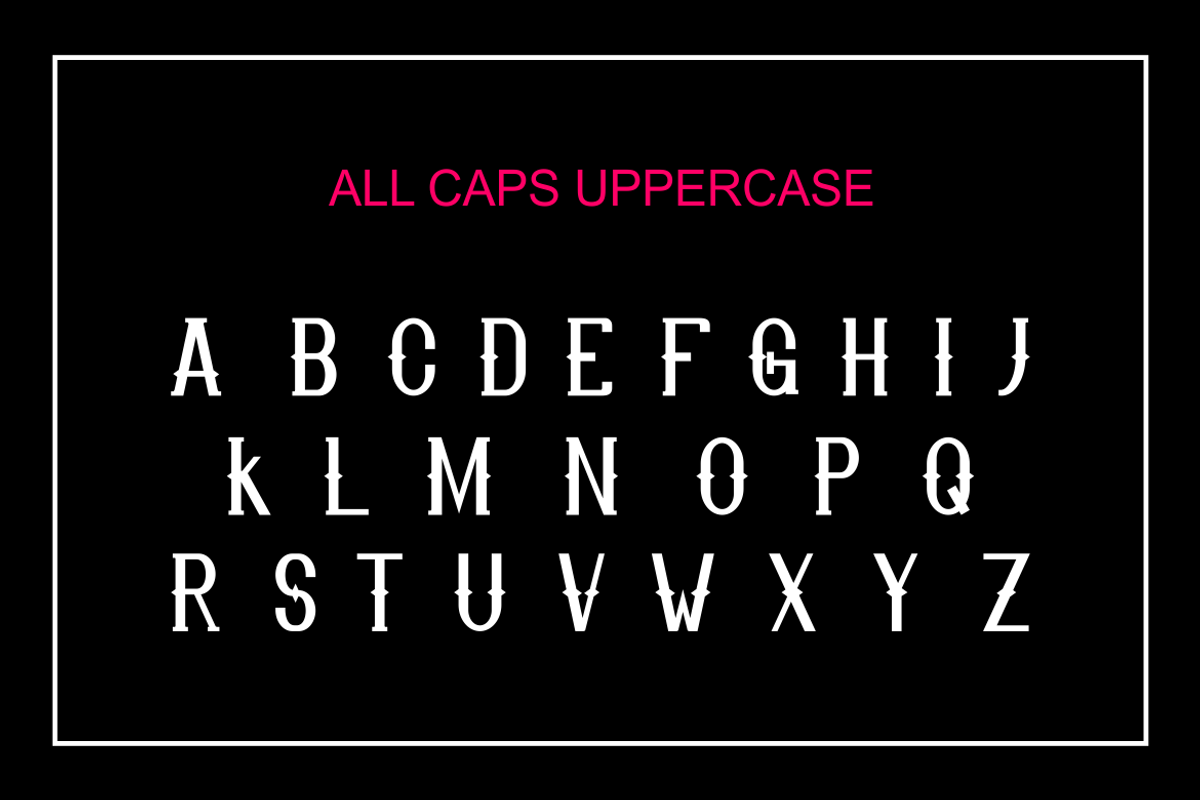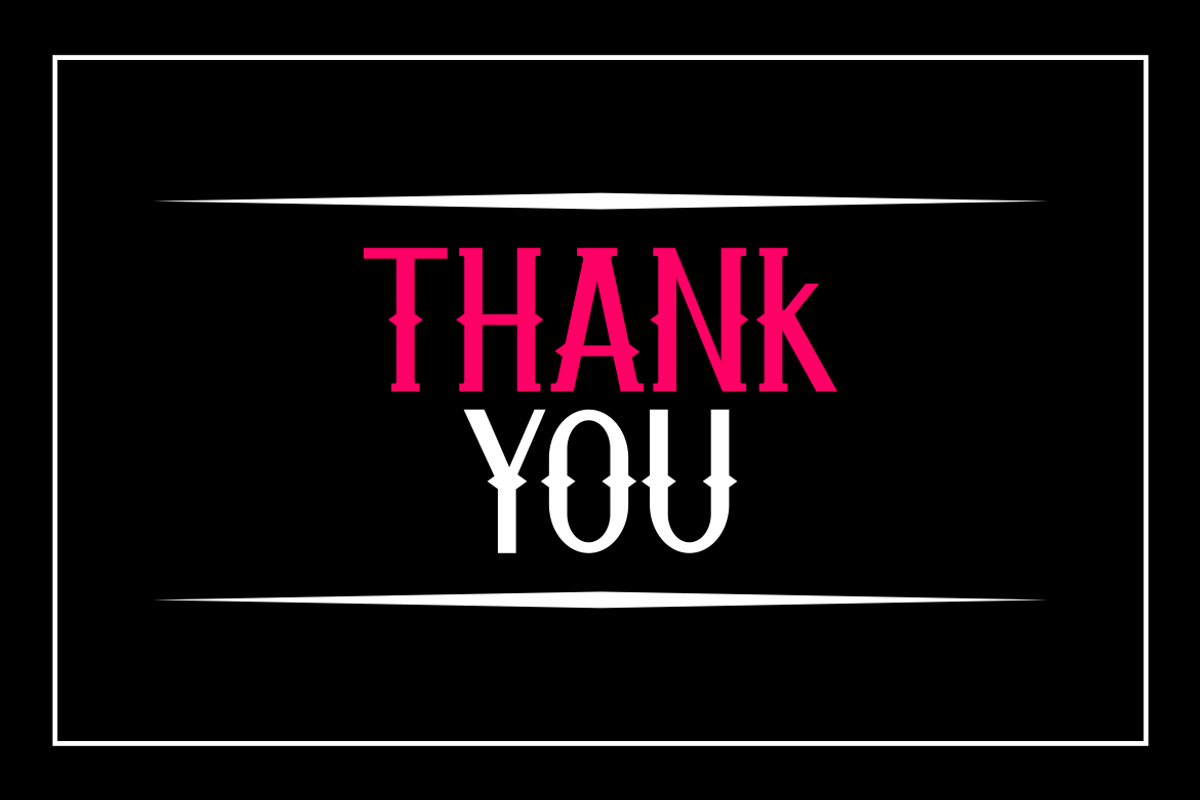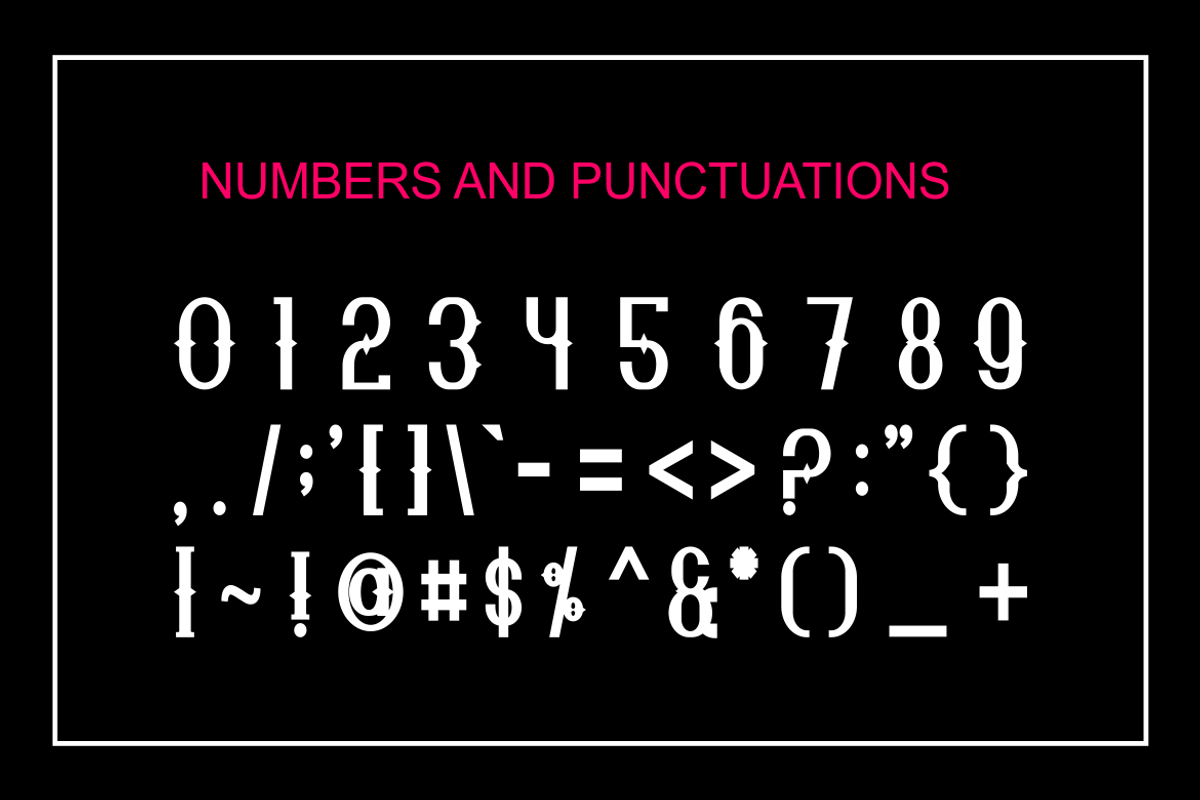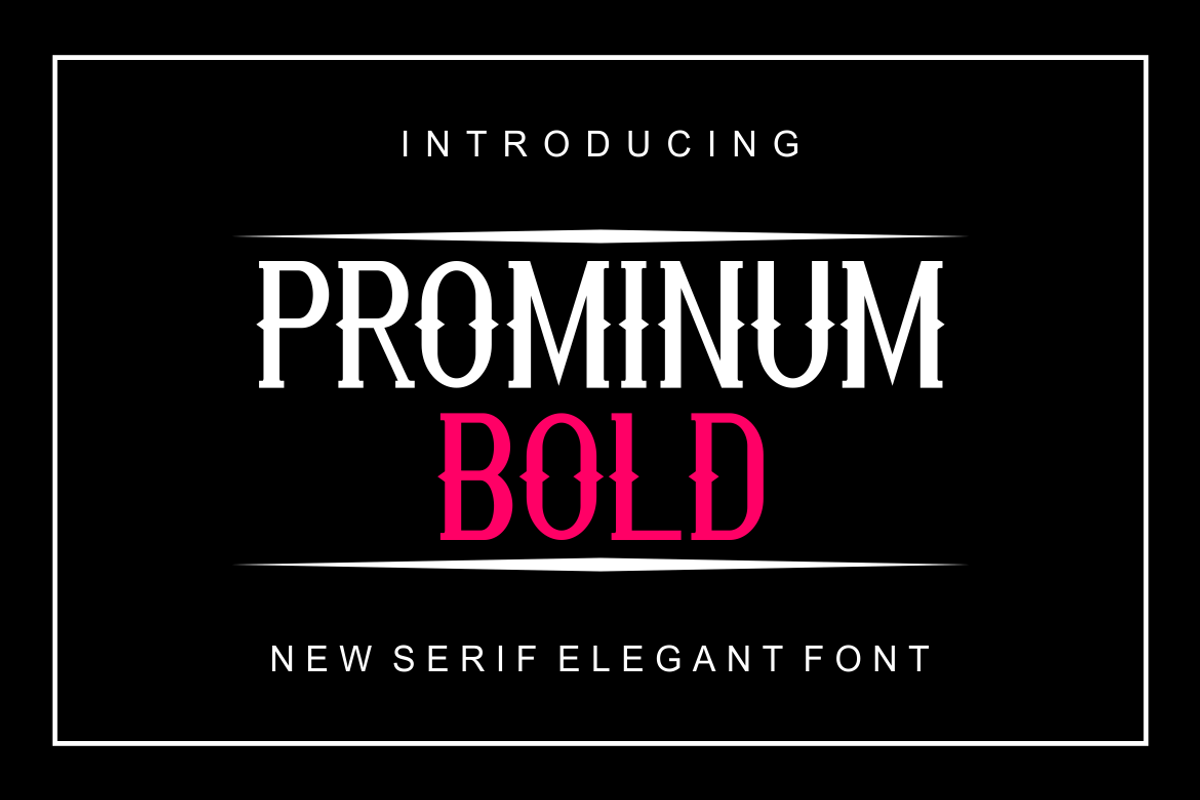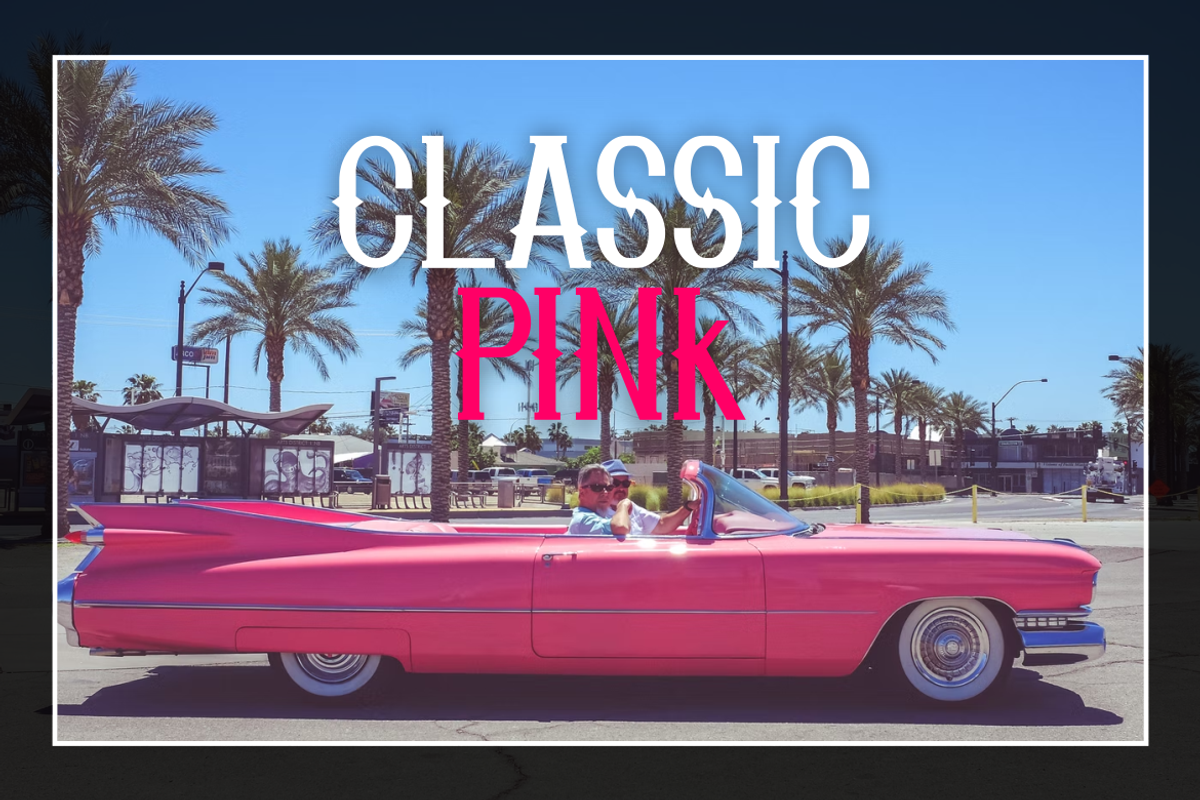
Prominum Bold Font
Introducing our new product Prominum Bold Font - Modern Font
Prominum Bold Font- Modern Font is a bold and authentic display font. The font is suitable for any branding project like logo, t-shirt printing, esport, and many more. outstanding in a wide range of contexts.